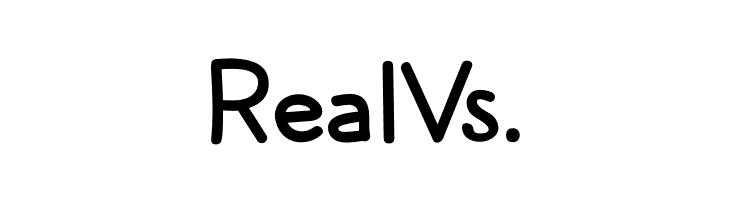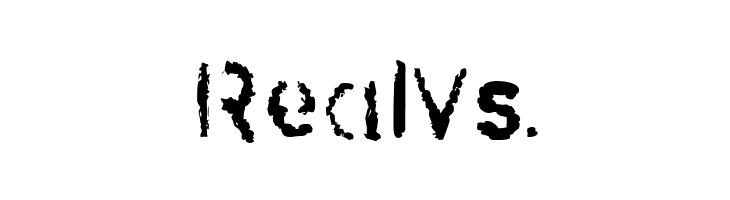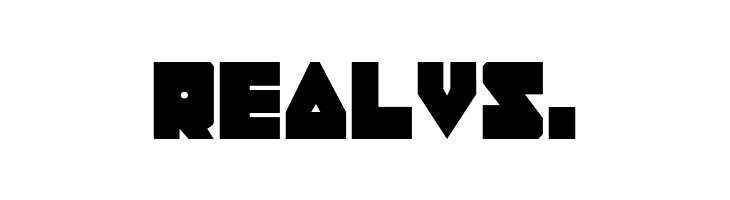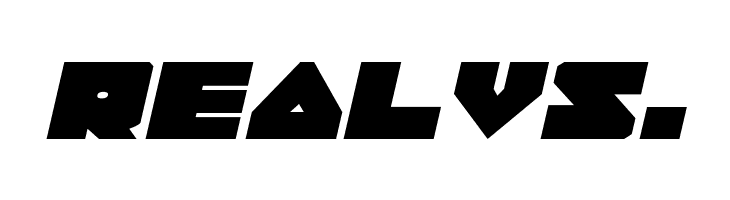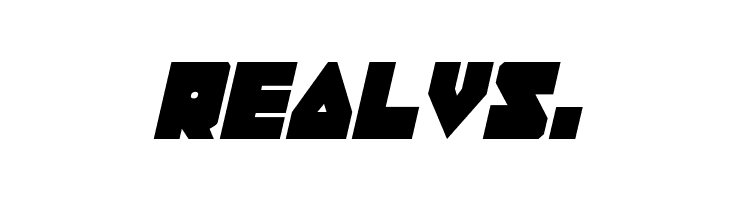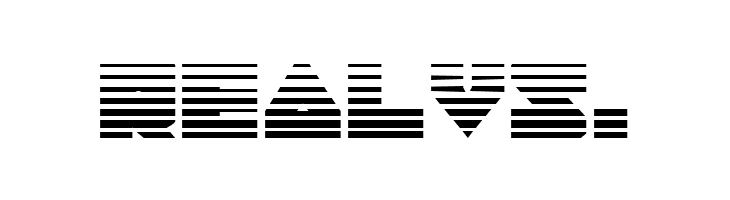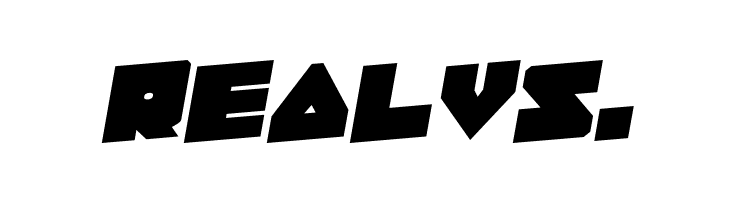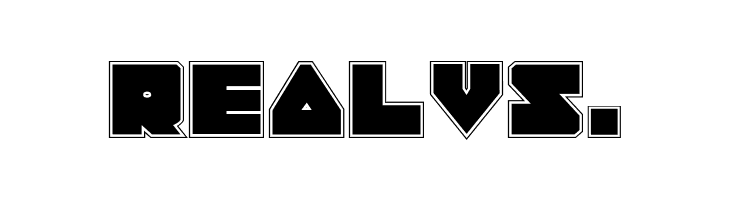
• Little Ballerina JL
A decorative font with ballerina silhouettes integrated into bold, artistic letters.
• Little Deuce Coupe NF
A bold, decorative font with a three-dimensional outline and vintage appeal.
• Little Dotties
A dot matrix style font with a playful and modern aesthetic.
• Little Lord Fontleroy NF
An elegant and decorative font with intricate curls and flourishes.
• Little Trouble Girl
A playful, hand-drawn font with jagged edges and bold, irregular characters.
• LittleDeuceCoupeNF
A bold, decorative font with outlined characters and a modern retro vibe.
• LittleEdellweiss
A whimsical and playful font with curly, decorative elements.
• LittleFriendsTwo
A collection of detailed insect illustrations in place of traditional characters.
• LittleLordFontleroyNF
An elegant, decorative font with intricate, ornate letterforms and a vintage flair.
• LittleRock
A classic serif font with balanced proportions and moderate contrast.
• LittleTroubleGirlOT
A quirky, hand-drawn font with playful, uneven strokes and exaggerated serifs.
• Lives Show FREE
A bold, brush-style script with a textured, distressed appearance.
• Livewired
• Livewired 3D
A bold, 3D outlined font with a futuristic and digital aesthetic.
• Livewired 3D Italic
A bold, 3D italic font with a futuristic and dynamic style.
• Livewired Academy
A bold, geometric font with a three-dimensional outlined effect.
• Livewired Academy Italic
A bold, italicized font with a modern, futuristic style and outlined characters.
• Livewired Chrome
A futuristic, layered font with a three-dimensional, digital aesthetic.
• Livewired Chrome Italic
A bold, italicized font with a futuristic striped design.
• Livewired Condensed
A bold, geometric, and condensed font with a modern, futuristic style.
• Livewired Condensed Italic